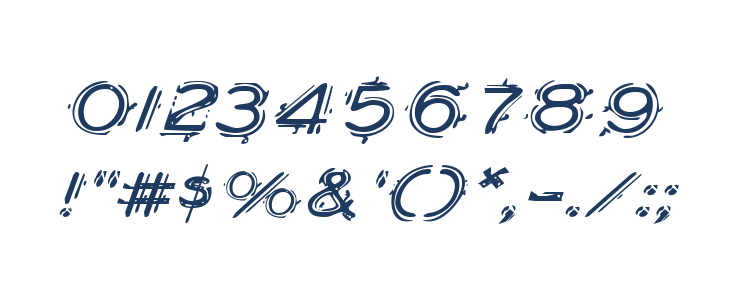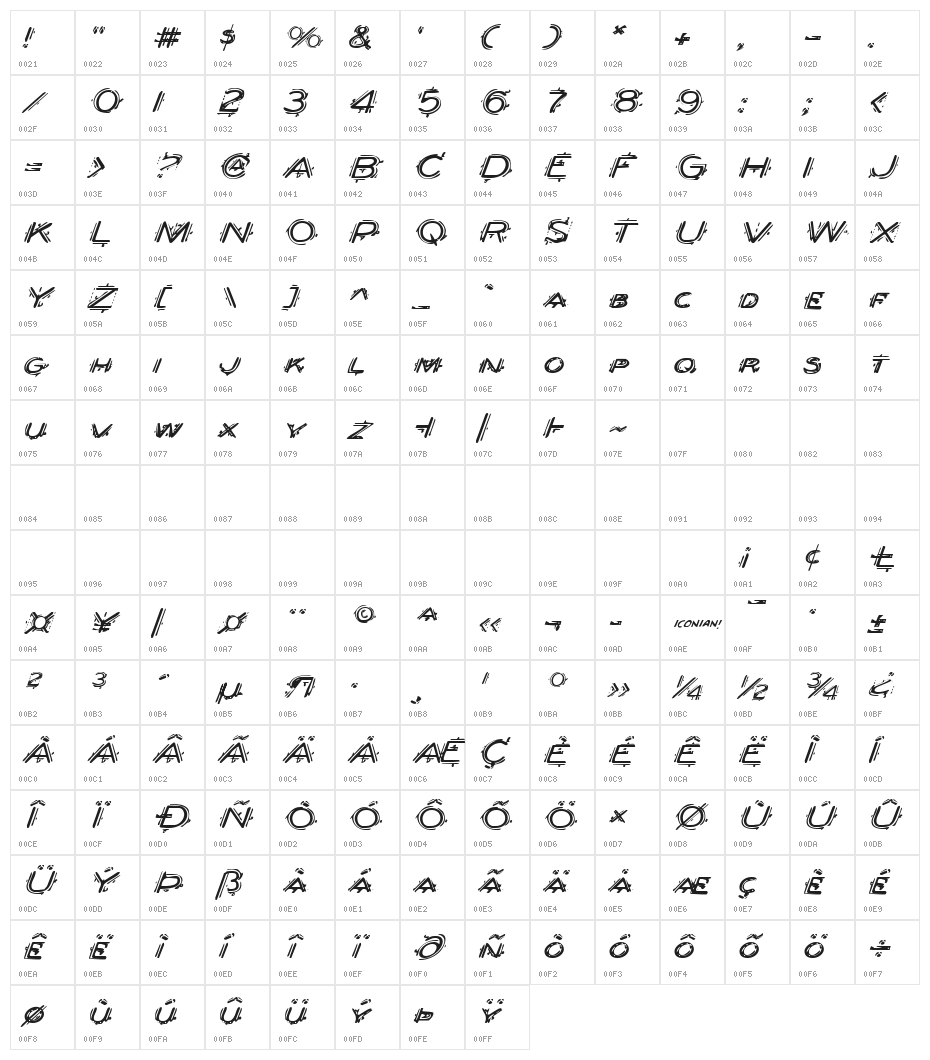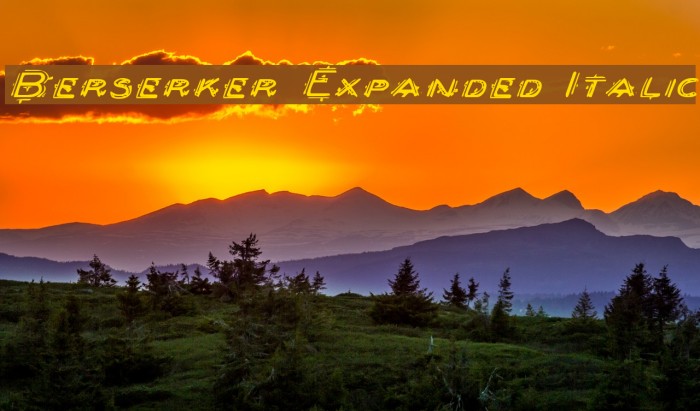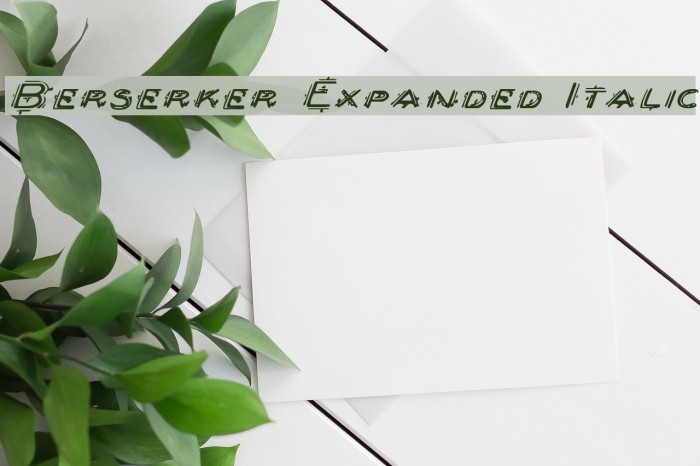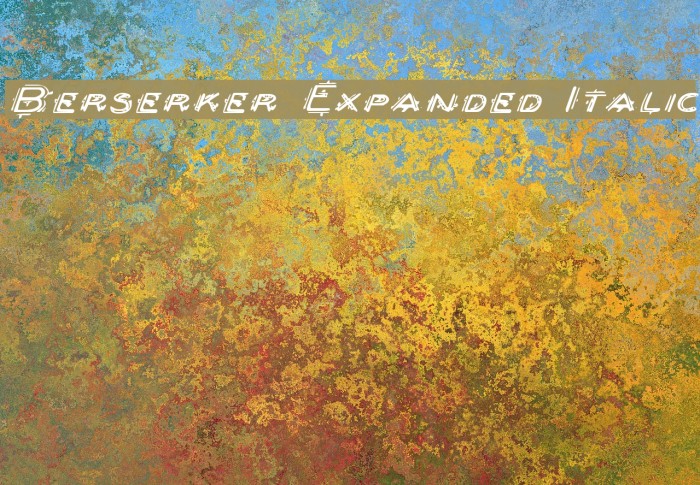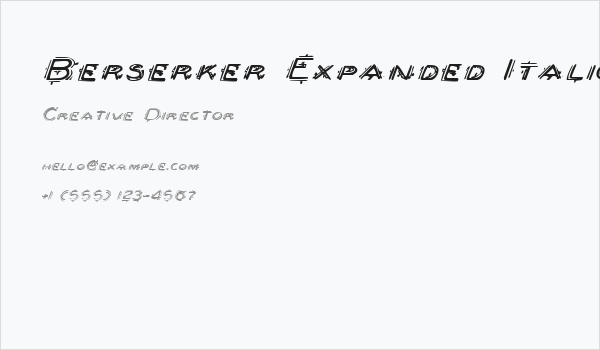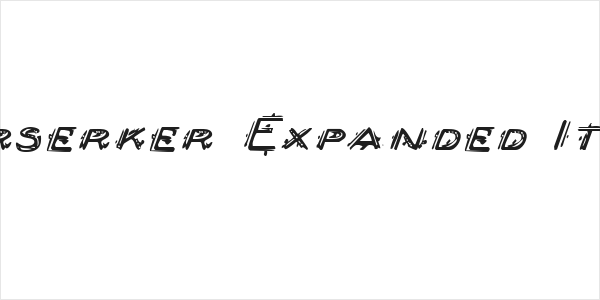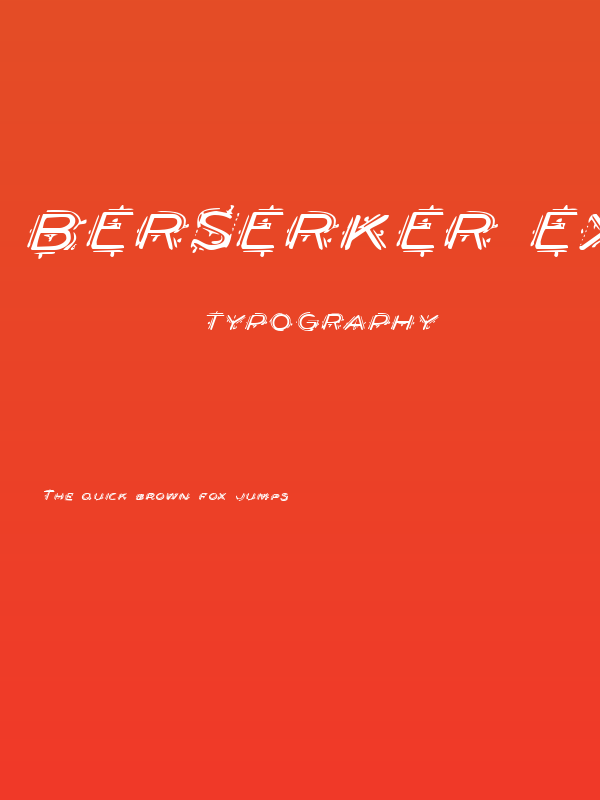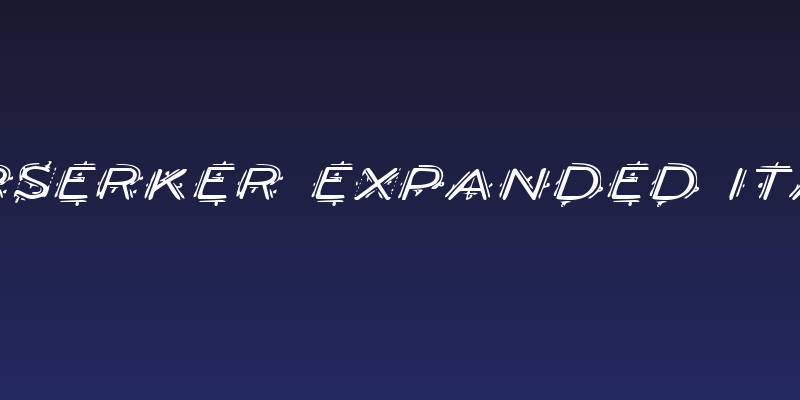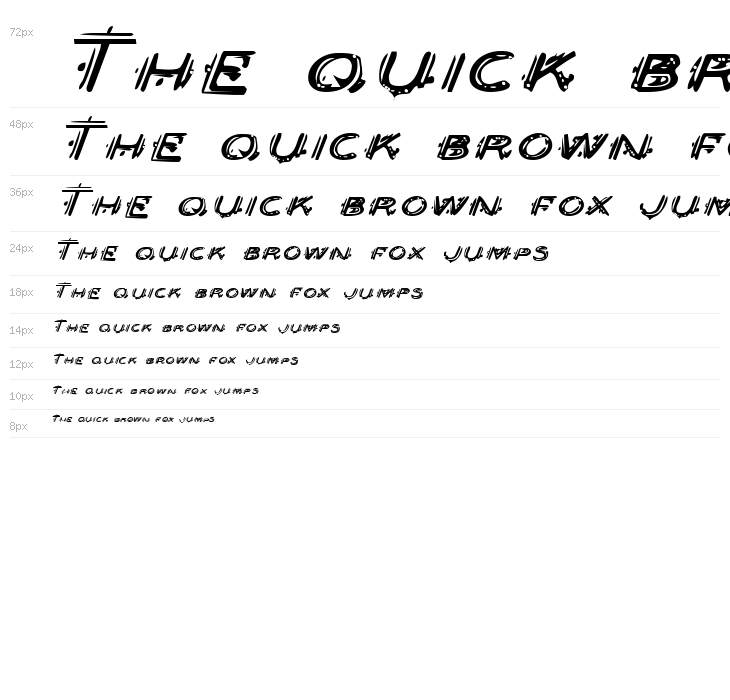
Berserker Expanded Italic Font
Berserker Expanded Italic Description
This font features a bold and aggressive style with a distinct italic slant, giving it a dynamic and energetic appearance. The characters are designed with sharp, angular edges and a distressed texture, creating a sense of movement and intensity. The expanded width of the letters adds to its bold presence, making it stand out in any design. The font includes a full set of uppercase and lowercase letters, numbers, and a variety of special characters, all maintaining the same rugged and edgy aesthetic. Its unique style is perfect for projects that require a strong, impactful visual statement.
| Overall Style | Modern, Edgy |
| Use Case | Logos, Posters, Headlines |
| Proposed Projects | Ideal for music album covers, sports team logos, action movie posters, and edgy branding materials. |